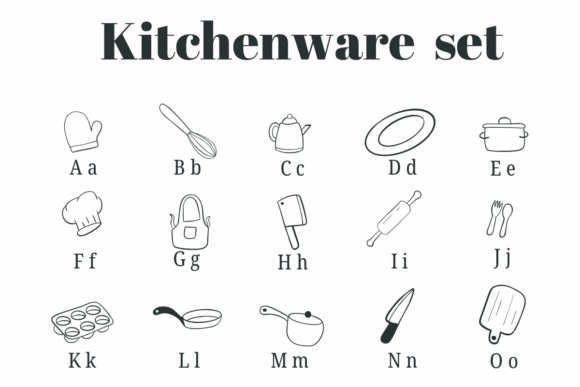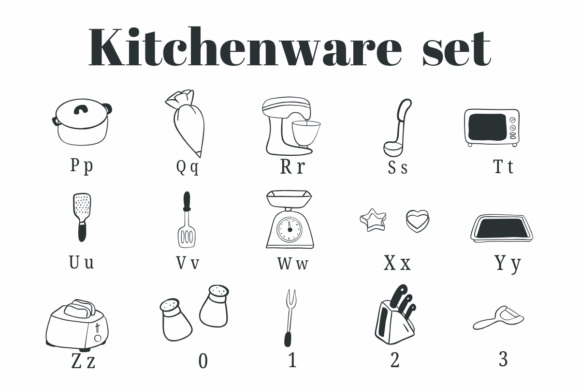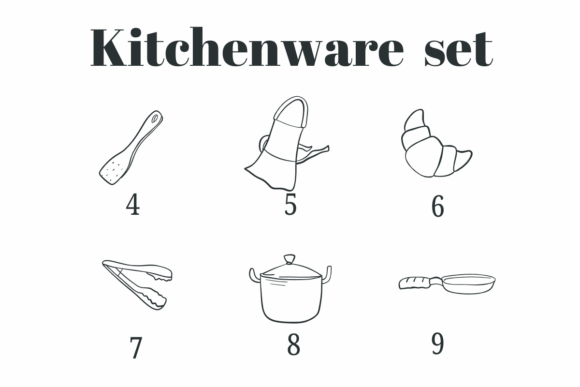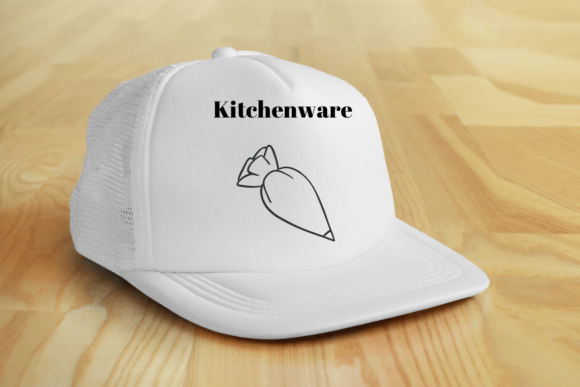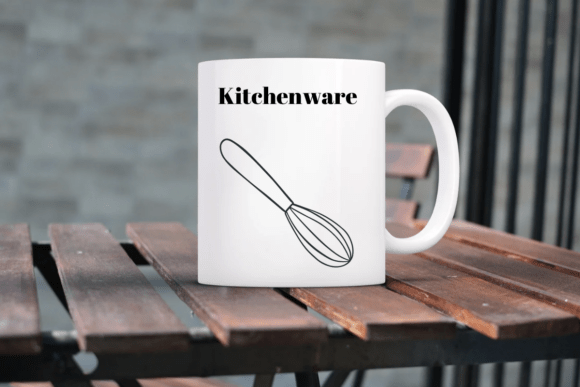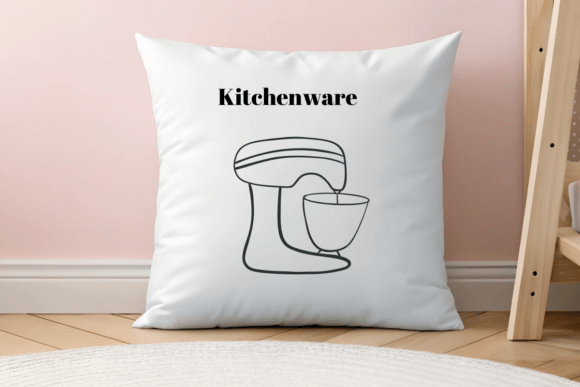
Kitchenware Set Font – Free Download
Introduction to Kitchenware Set Font
Cook Up Something Creative.
Bring a dash of charm to your culinary designs with this Kitchenware Dingbats Font This delightful collection features a wide array of hand-drawn kitchen essentialsโfrom whisks and rolling pins to vintage toasters and chef hats.
Key Features of Kitchenware Set Font
Why Choose Kitchenware Set Font?
Kitchenware Set Font offers exceptional quality and versatility, making it a valuable addition to your design toolkit. Whether you’re creating for personal projects or commercial use, Kitchenware Set Font delivers professional results.